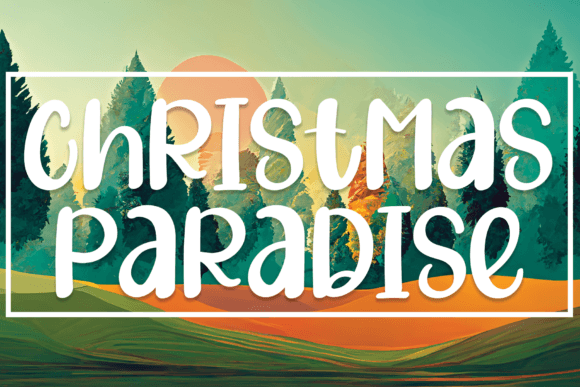
Step into a winter wonderland with our Christmas Paradise Font, a charming and enchanting creation by William Jhordy. This captivating script font effortlessly captures the magic and warmth of the Christmas season.
Designed with meticulous attention to detail, each letter of Christmas Paradise dances and swirls like snowflakes in a gentle breeze. Its playful and whimsical nature adds a touch of whimsy and cheer to any project.
Whether you're crafting personalized Christmas cards, designing holiday invitations, or creating festive social media graphics, Christmas Paradise will make your words come alive. Its effortlessly elegant style will add a touch of sophistication to your designs, while its cheerful and lighthearted vibe will spread joy and merriment wherever it's used.
Immerse yourself in the spirit of Christmas with Christmas Paradise. This font is perfect for capturing the essence of the season, whether you're creating heartwarming family photos, festive holiday posters, or enchanting Christmas stories.
With its versatility and timeless charm, Christmas Paradise is the perfect font for any Christmas-themed project. Its ability to effortlessly blend with a variety of design styles makes it a must-have for designers, crafters, and anyone looking to add a touch of Christmas magic to their creations.
So, as the snow falls softly, the presents are wrapped, and the tree is trimmed, let Christmas Paradise be your guiding light in your creative journey. Its joyful spirit and enchanting beauty will make your designs shine brighter than a star on Christmas Eve.